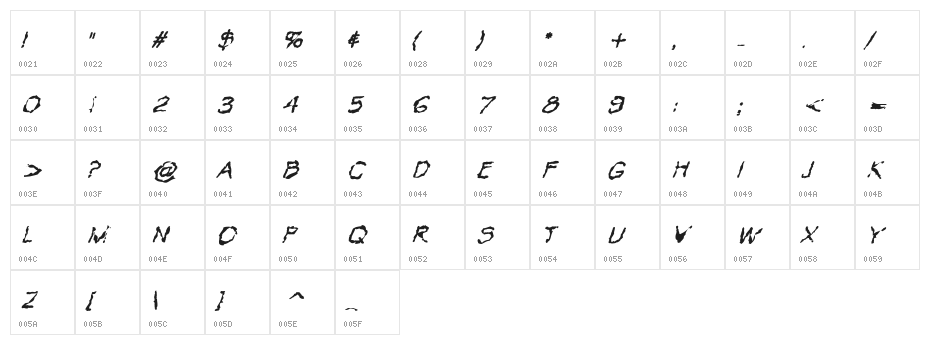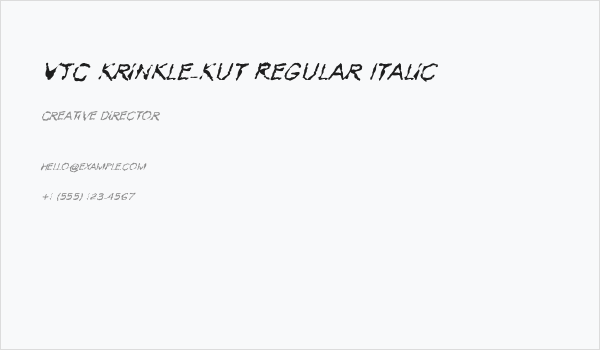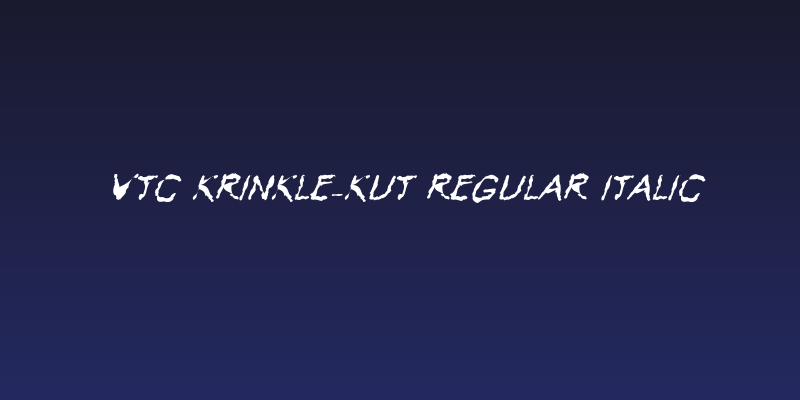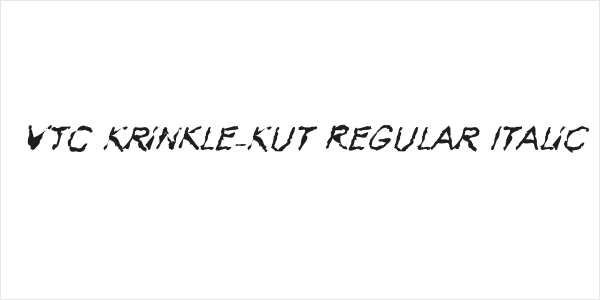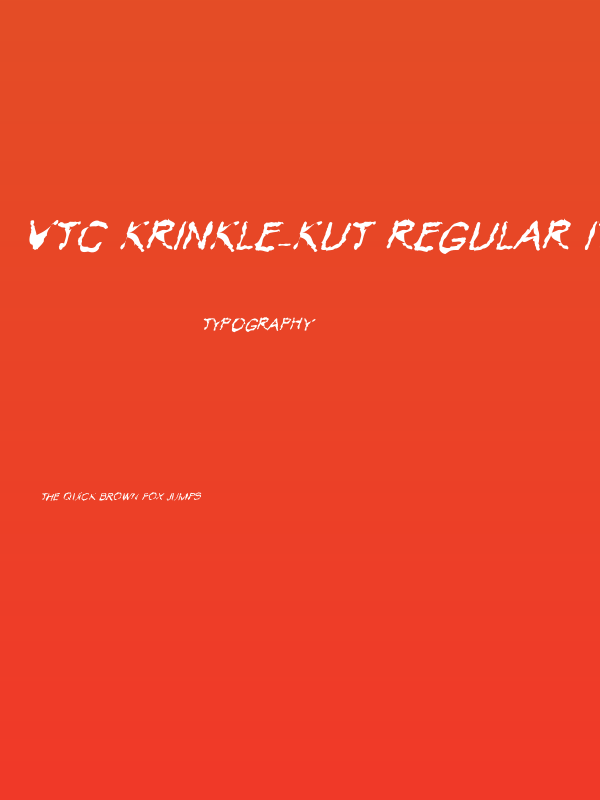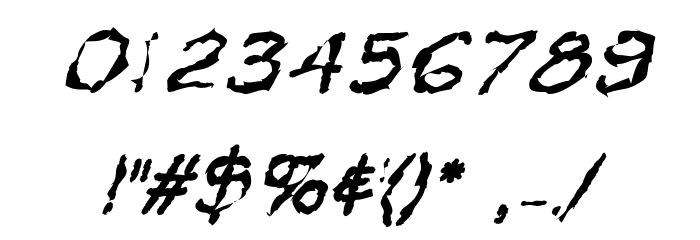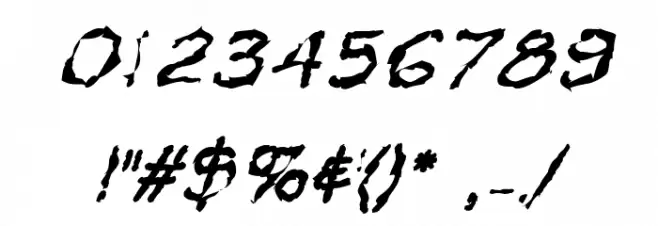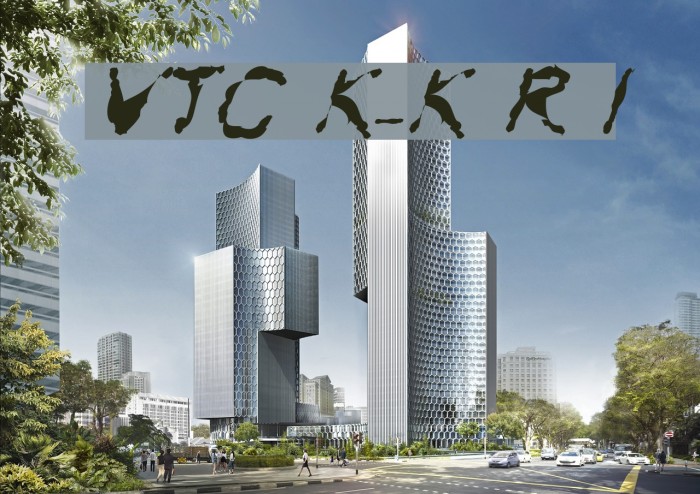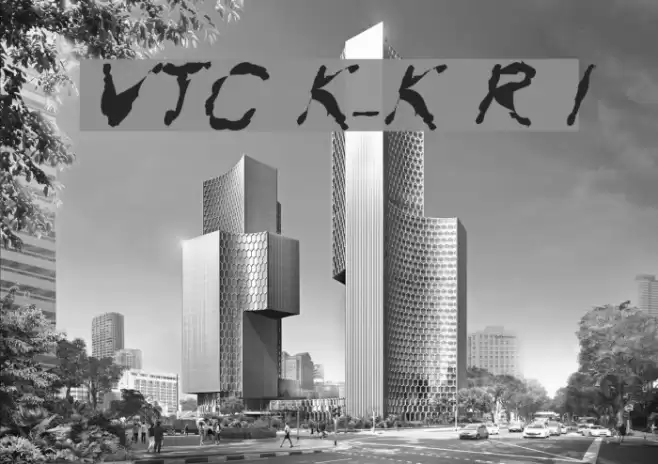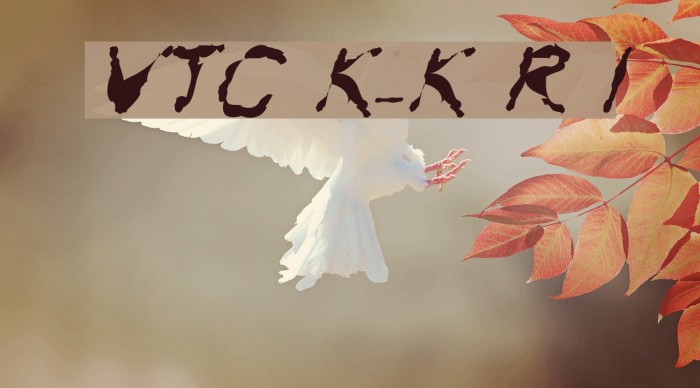
VTC Krinkle-Kut Regular Italic Font
VTC Krinkle-Kut Regular Italic Description
This font features a distinctive, jagged style that mimics the appearance of torn paper or rough edges. The characters have an irregular, hand-cut look, giving them a unique and edgy aesthetic. The uppercase and lowercase letters maintain a consistent style, with sharp angles and uneven lines that create a dynamic and energetic feel. The numbers and special characters follow the same design principles, ensuring a cohesive appearance across all glyphs. This font's bold and italicized nature adds to its striking visual impact, making it suitable for projects that require a bold statement.
| Proposed Projects | Ideal for edgy branding, album covers, posters, and creative design projects seeking a unique, rough aesthetic. |